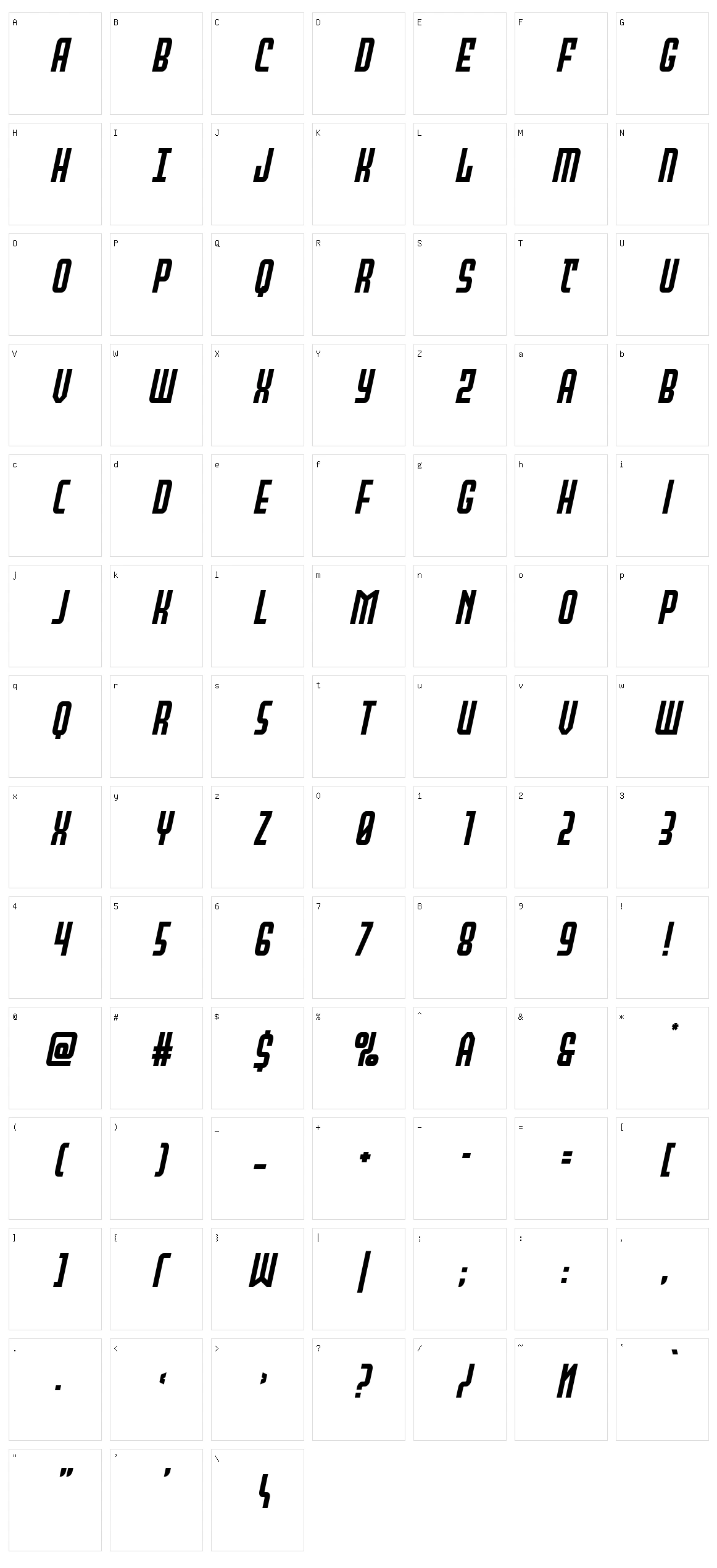
This font comes with the following 29 versions: Regular, Italic, Semi-Italic, Condensed, Condensed Italic, Expanded, Expanded Italic, Wide, Wide Italic, Bold, Bold Italic, Semi-Bold, Semi-Bold Italic, Extra Bold, Extra Bold Italic, Outline, Outline Italic, 3D, 3D Italic, Halftone, Halftone Italic, Laser, Laser Italic, Academy, Academy Italic, Leftalic, Super-Italic, Title and Title Italic.